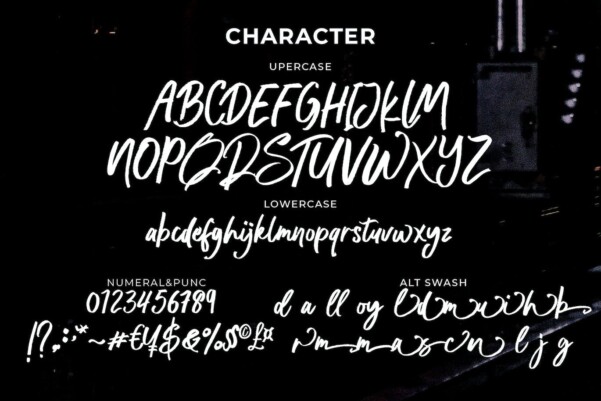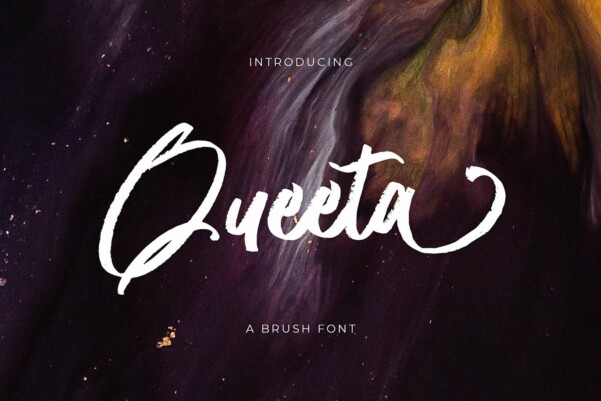
Queeta Font
Queeta Font inspired by natural brush typeface. Written in rapid movements using a slightly dry pen. It will give you a fresh and modern design and will look beautiful with offer, magazine style, offer logo, product packaging, headers, posters, merchandise, greeting cards on social networks and more